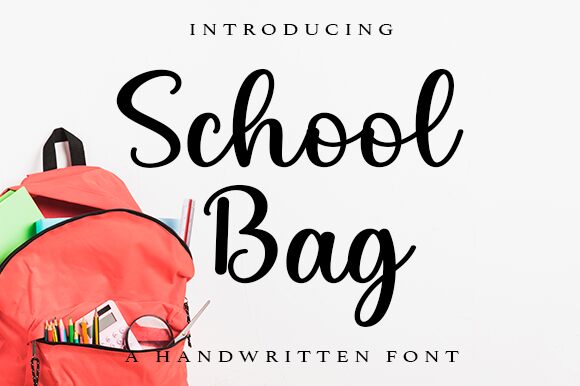
School Bag
School Bag, a semi-bold treasure from the creative minds at Wahyu Studio, effortlessly captures the essence of handwritten elegance.
With its unique blend of charm and sophistication, this font transitions smoothly from heartwarming wedding invitations to professional business cards. Each curve and stroke in School Bag is designed to evoke a personal touch that resonates in thank you cards, memorable quotes, and custom logos.
Embracing versatility, its PUA encoding ensures designers enjoy the full spectrum of glyphs and swashes without hassle. Transform your creative project with School Bag's distinct style—where every word is imbued with personality and grace.